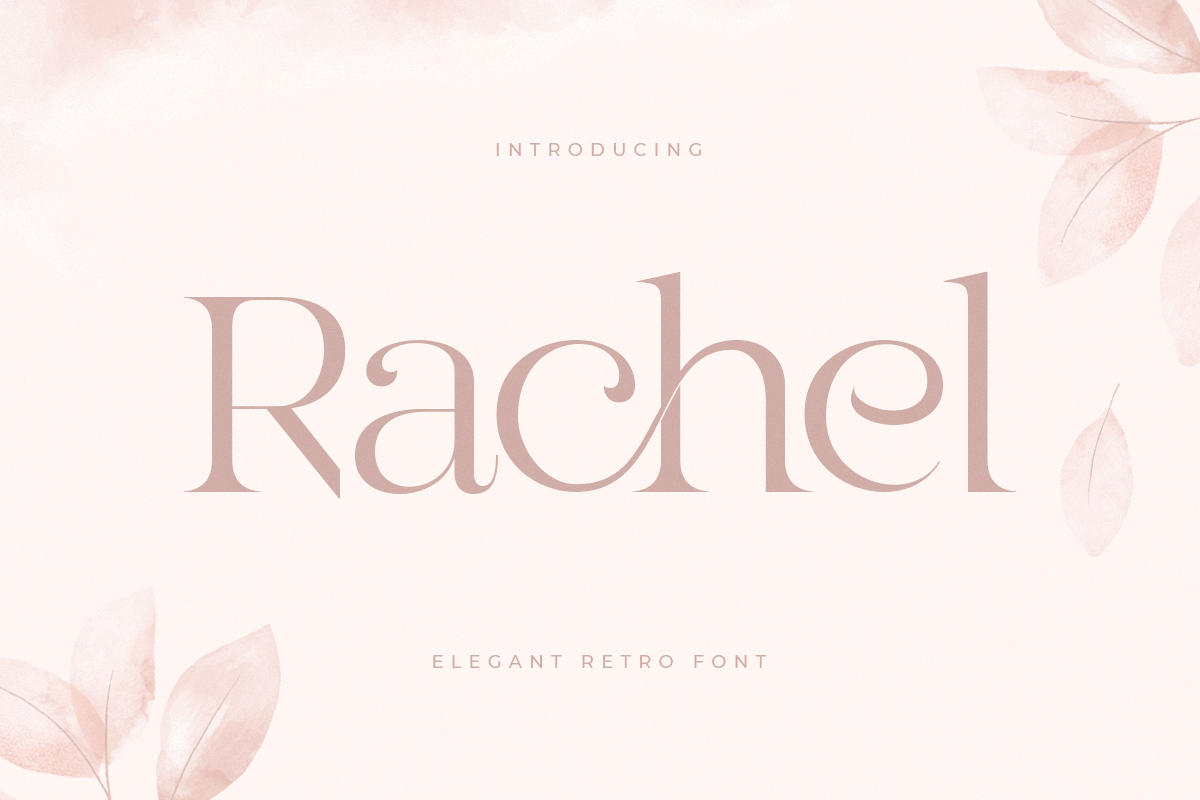
Rachel
-Elegant Retro Serif Font
Rachel
Rachel is An Elegant Beauty Retro font that special crafted with carefully to leverage your design project
A new font that we created special for branding needs, with unique characters and awesome ligature characters are ready to add value of your brand. It so nice to leverage designer or product owner that need solutions to make their design look more beauty and modern. And specially for Rachel font, We prepared any ligature characters to help you create unlimited variations for your creative needs.